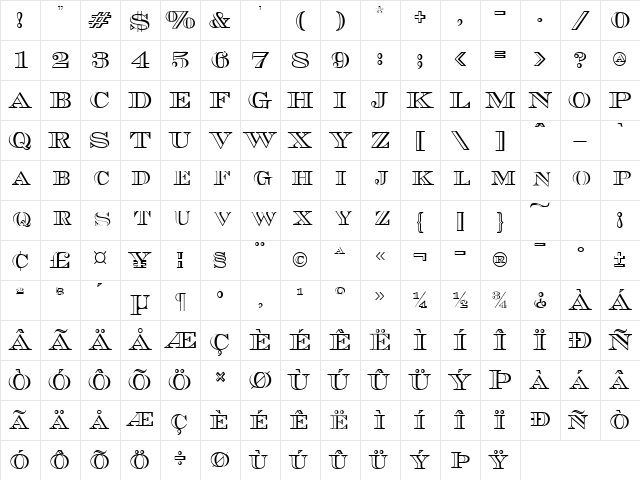
TribOutlineSCapsSSK Regular
Design Context for TribOutlineSCapsSSK
TribOutlineSCapsSSK is built around its visual character rather than neutral utility - its distinctive forms are designed to make an impression at display sizes.
Font Pairing: Pair with a clean neutral sans-serif for body copy to let TribOutlineSCapsSSK's character lead without overwhelming the composition.
Pro Tip: Use TribOutlineSCapsSSK exclusively at display sizes - it was designed to be seen, not read at length. Let a neutral companion handle body copy.